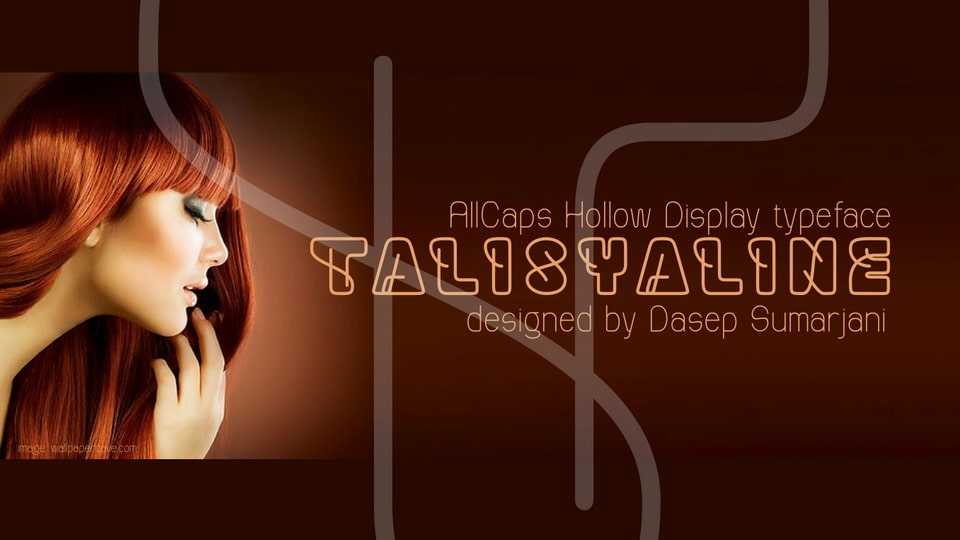
Download Talisyaline font, not an ordinary hollow typeface. It’s not only outlining the glyphs. It is the single line which is struggling to find out its own form in every single glyphs!
Designer: Dasep Sumarjani